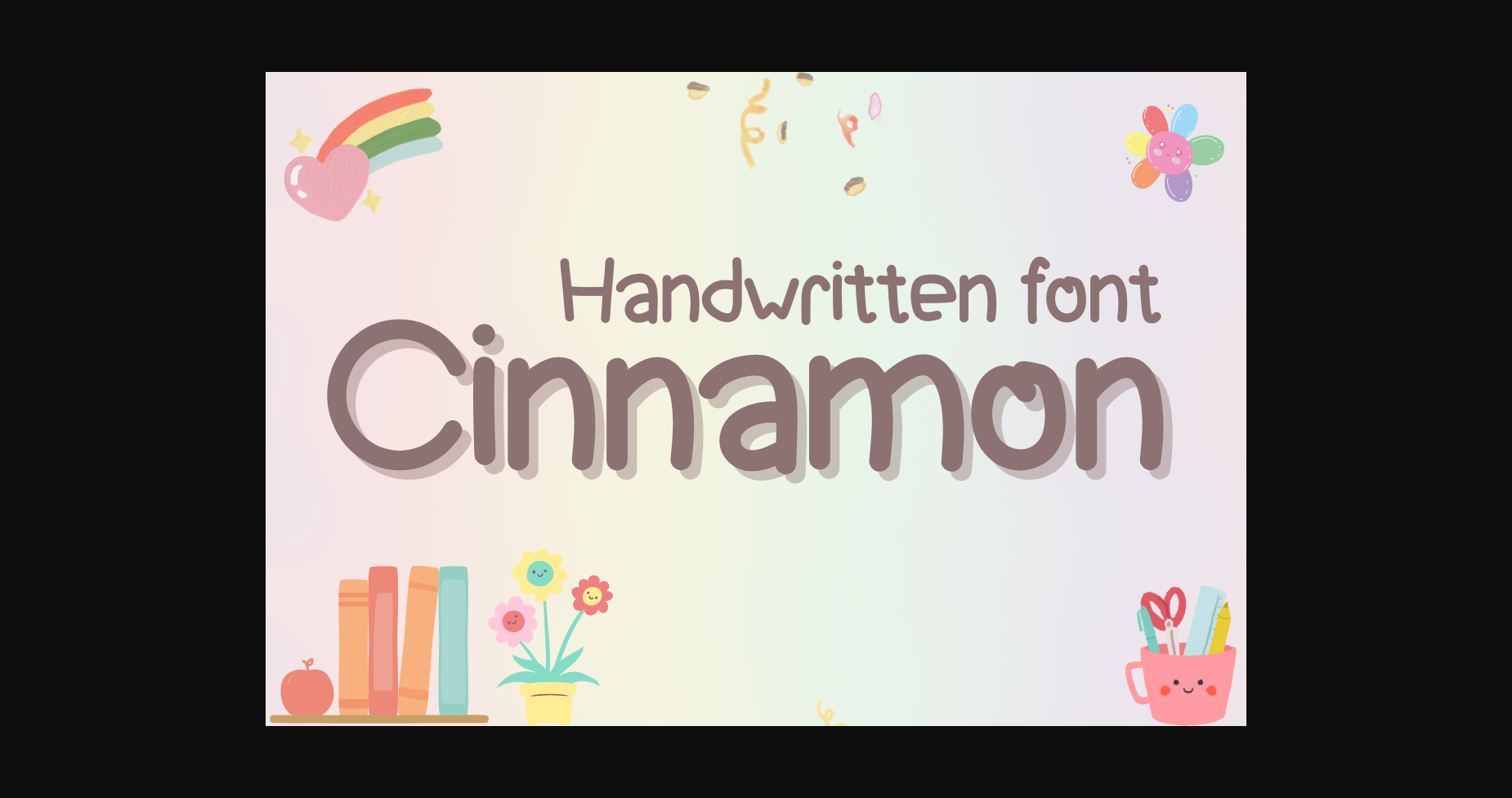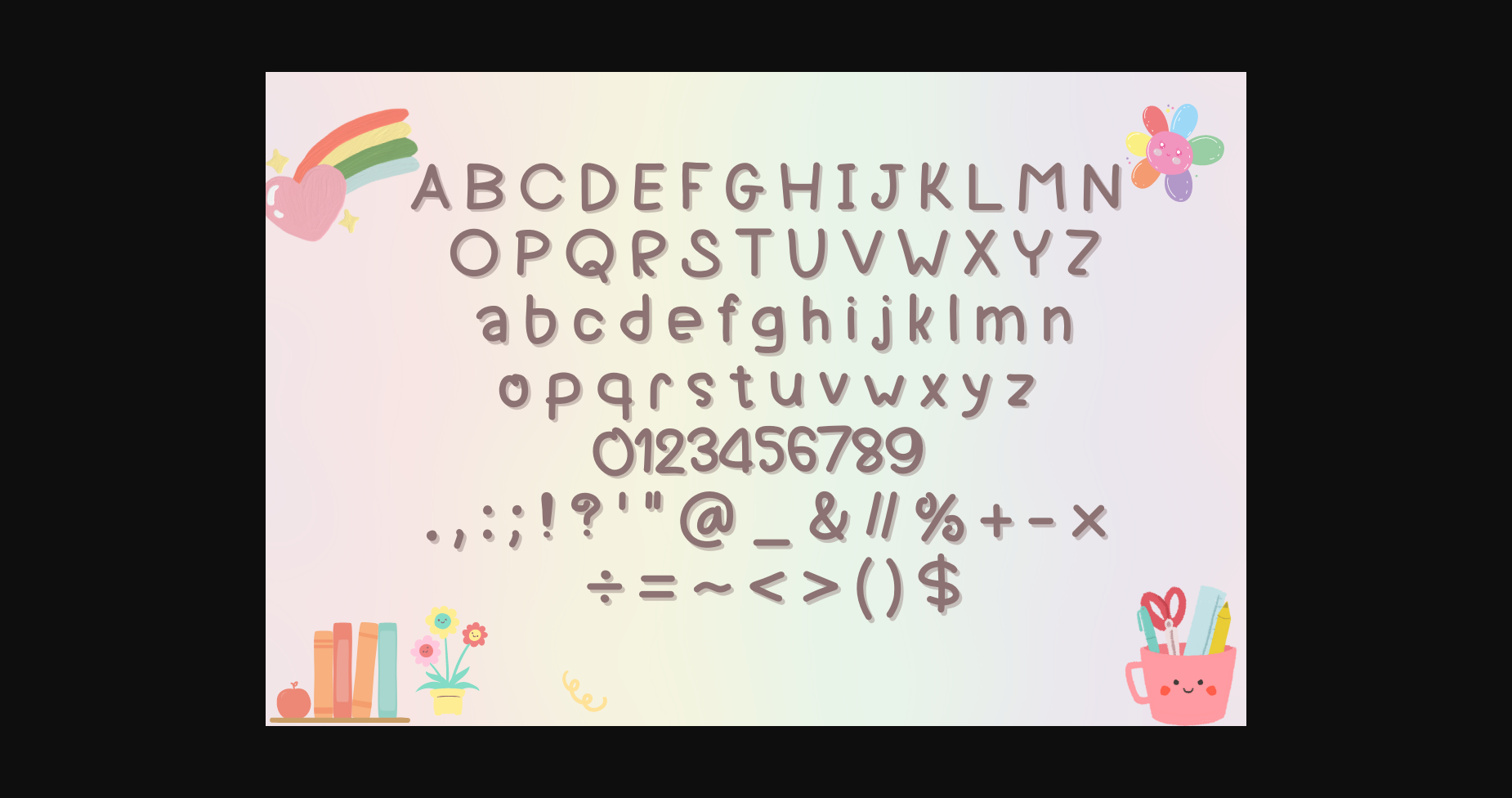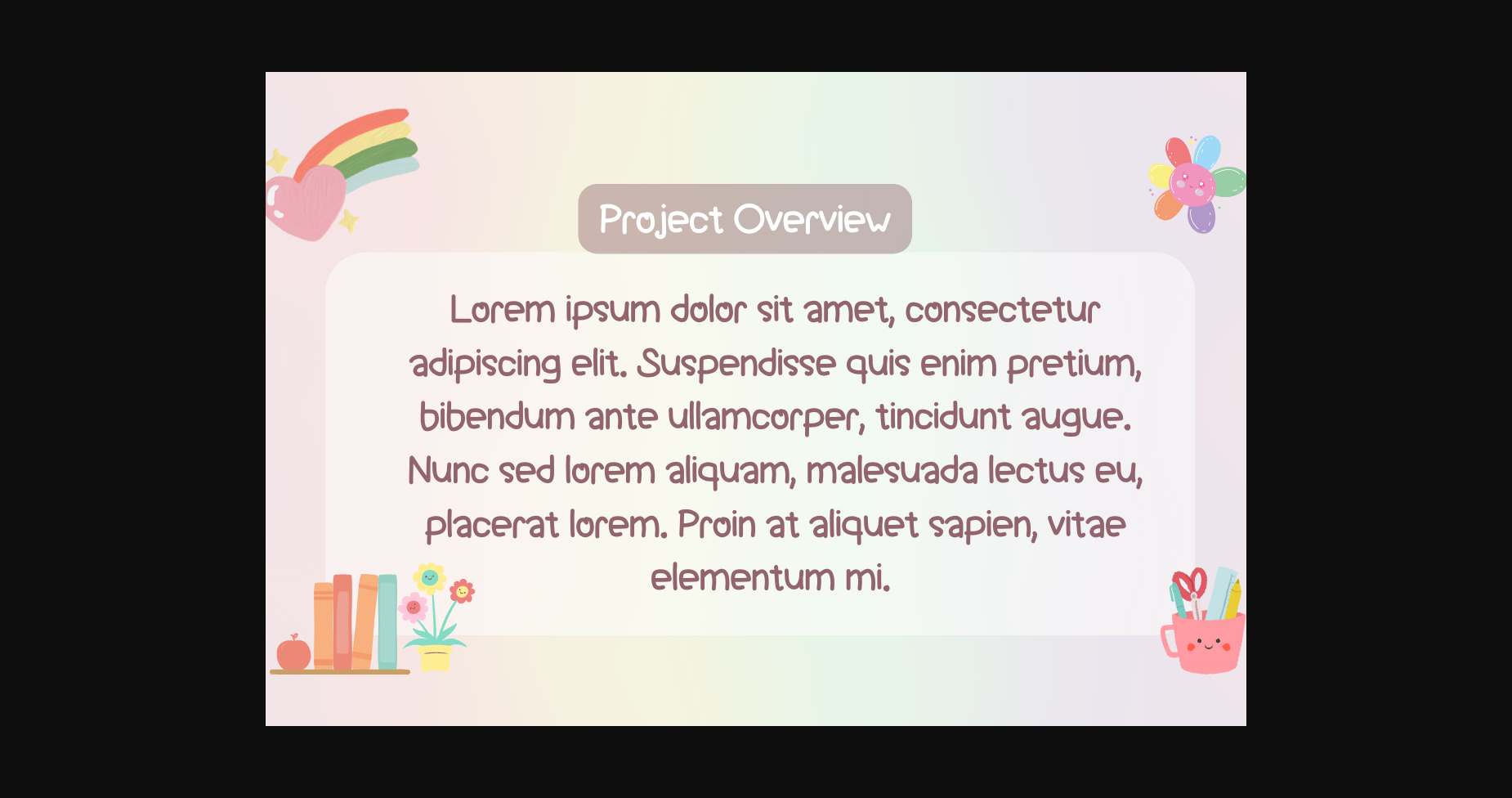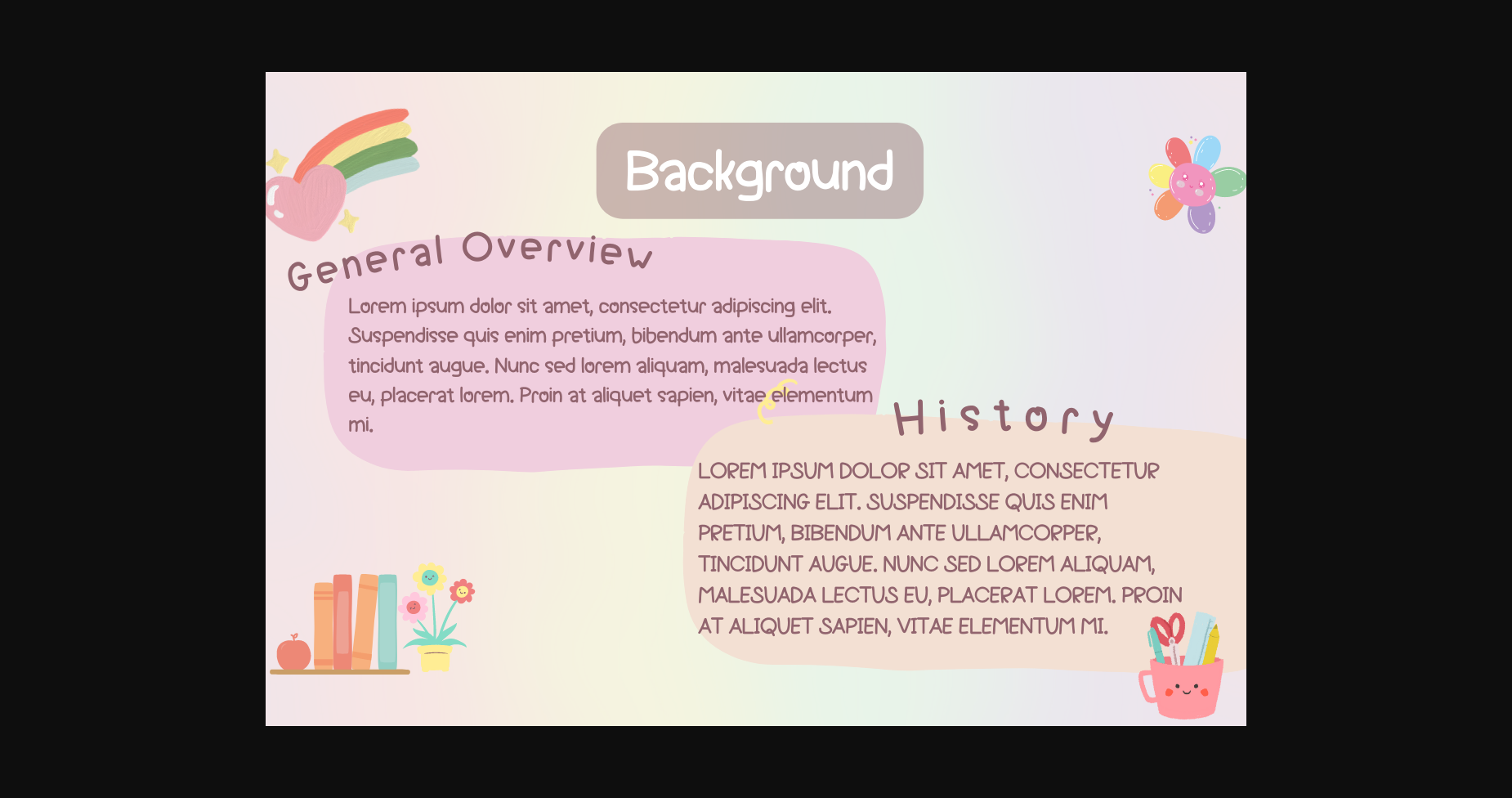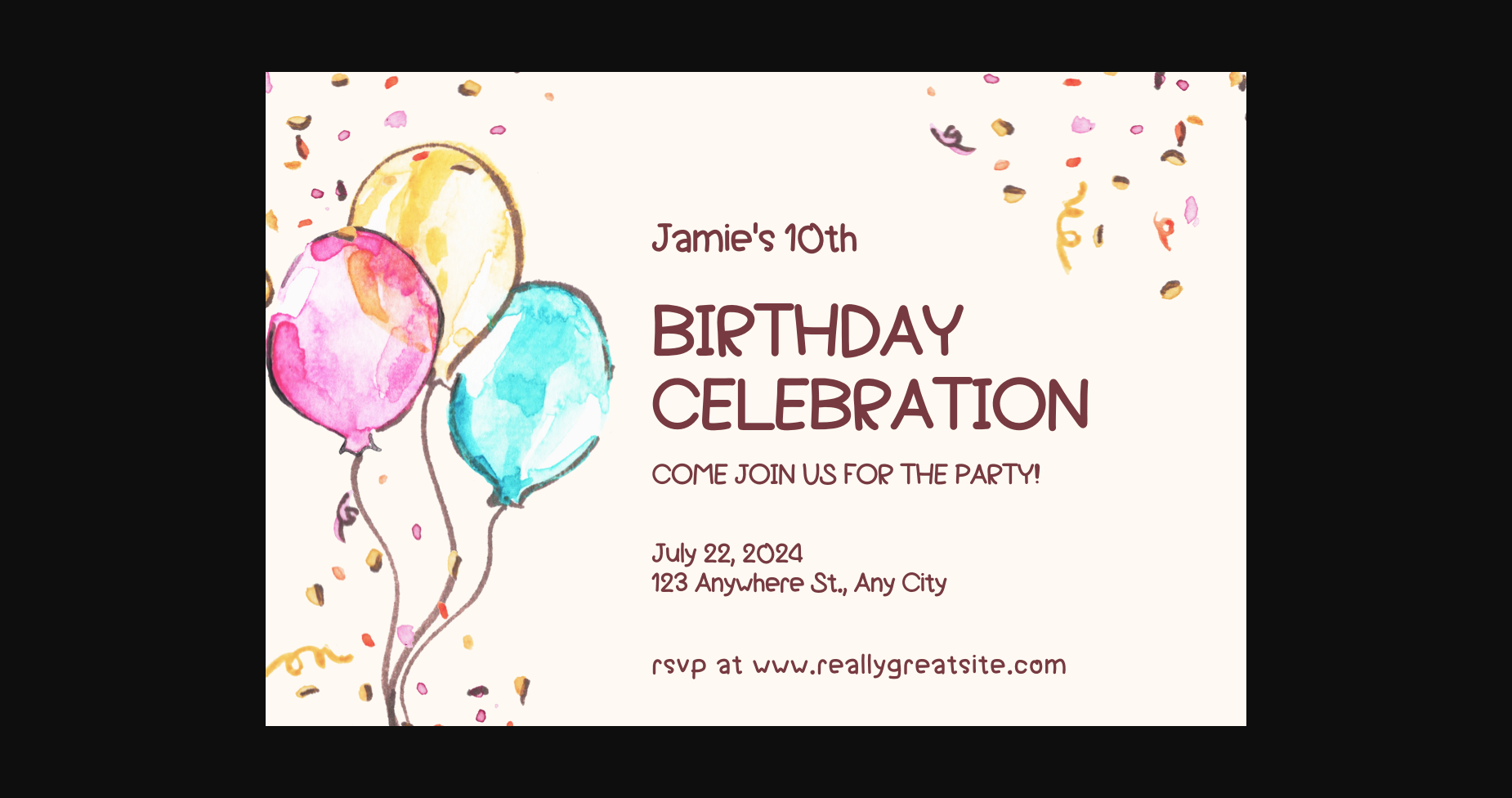
Cinnamon Font
About Cinnamon Font
The Cinnamon Font is a captivating and aromatic typeface that brings a spicy and enchanting touch to your designs. Inspired by the warmth and richness of cinnamon, its elegant letterforms and intricate details create a sense of sophistication. Perfect for culinary branding, recipe cards, holiday-themed designs, and more, Cinnamon Font adds a flavorful and delightful element to your typography.